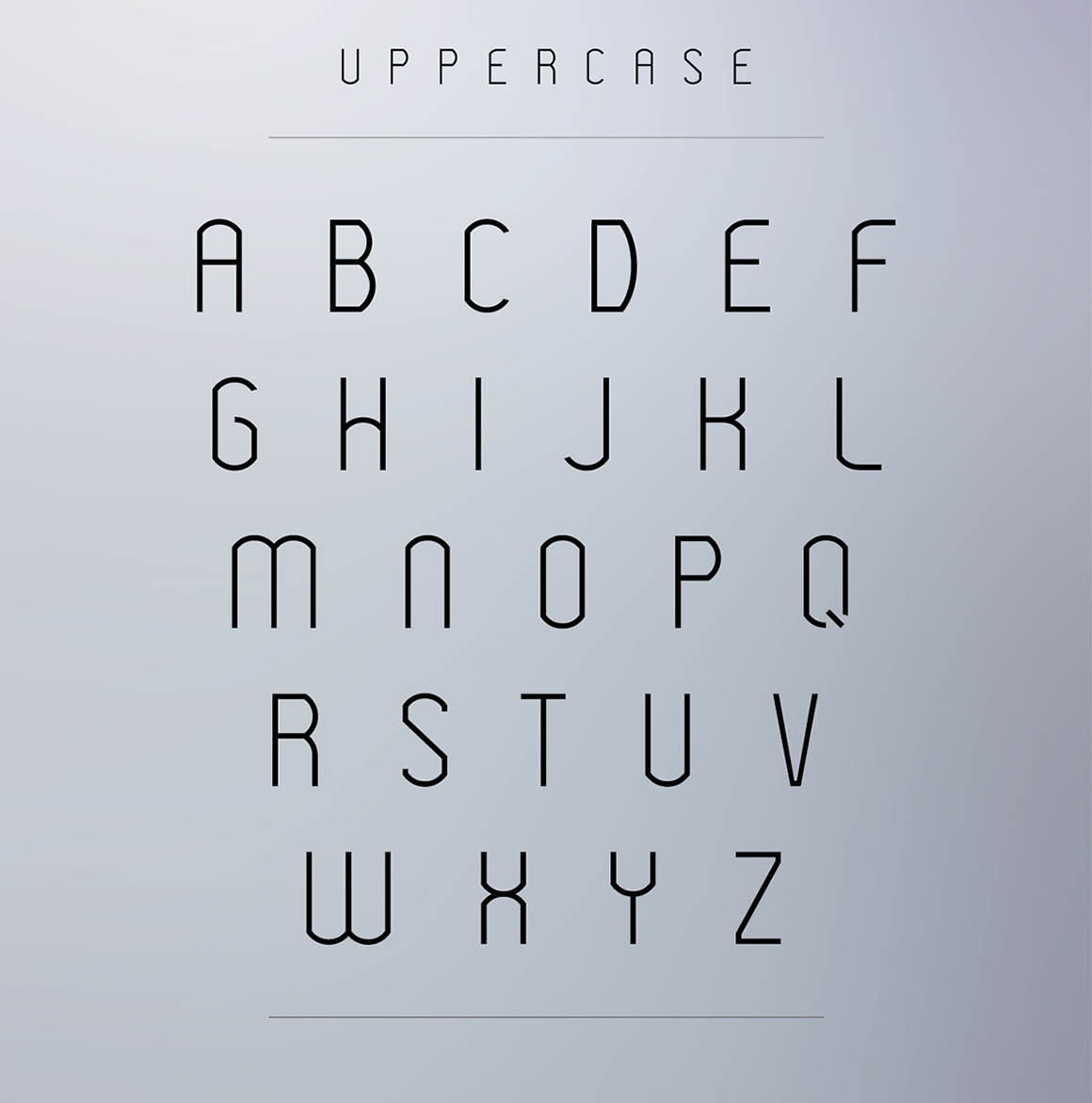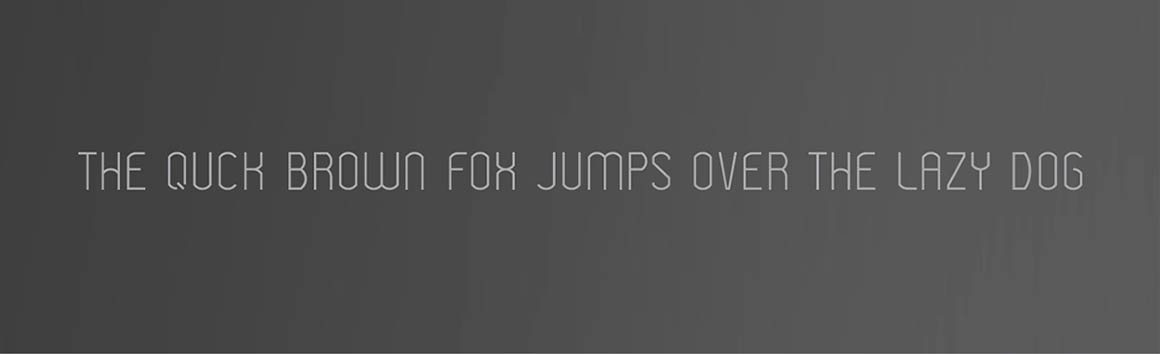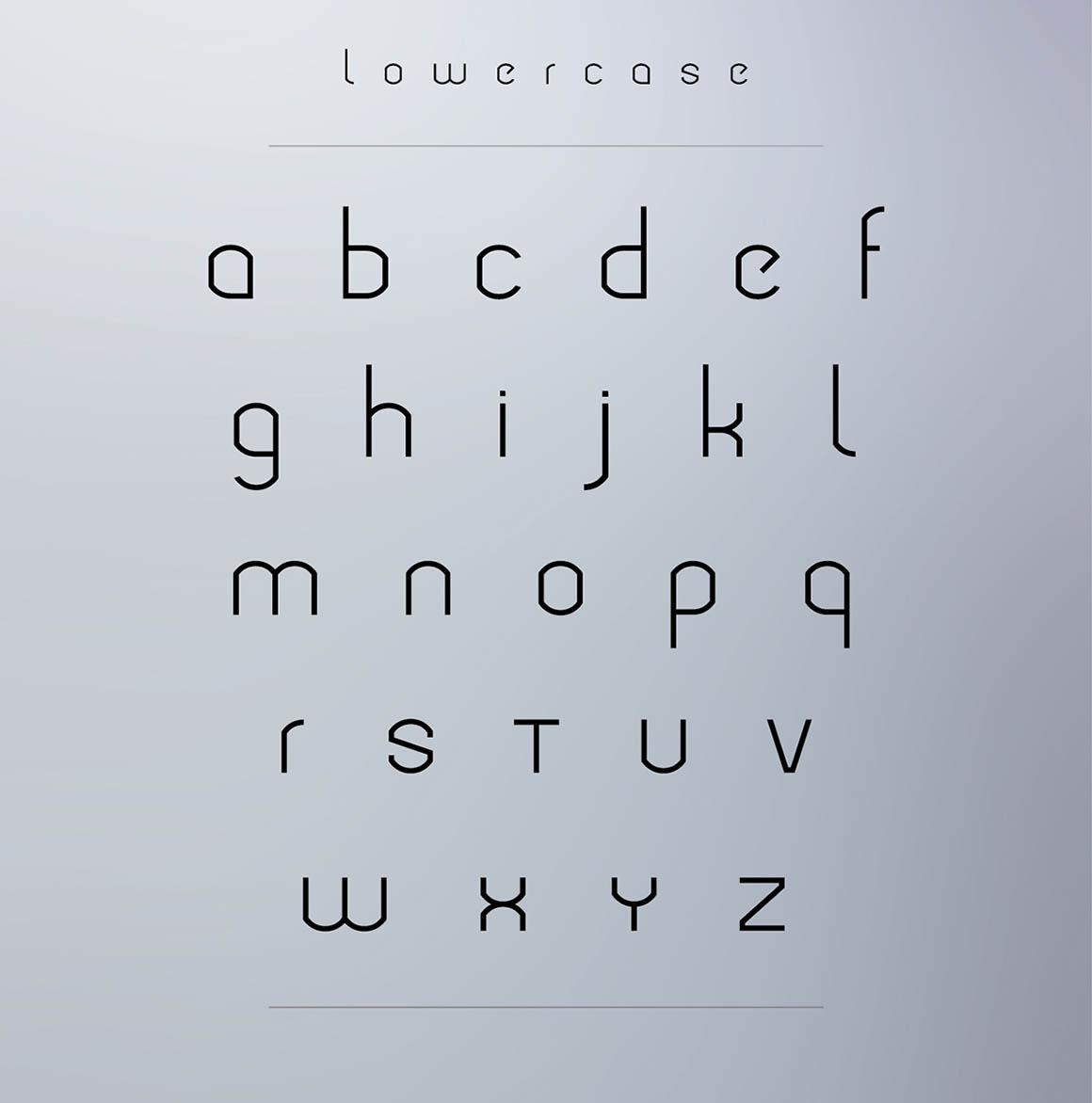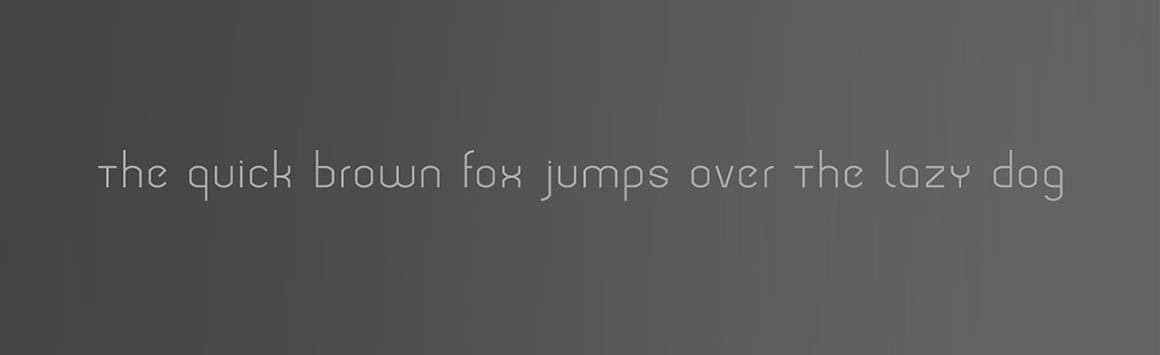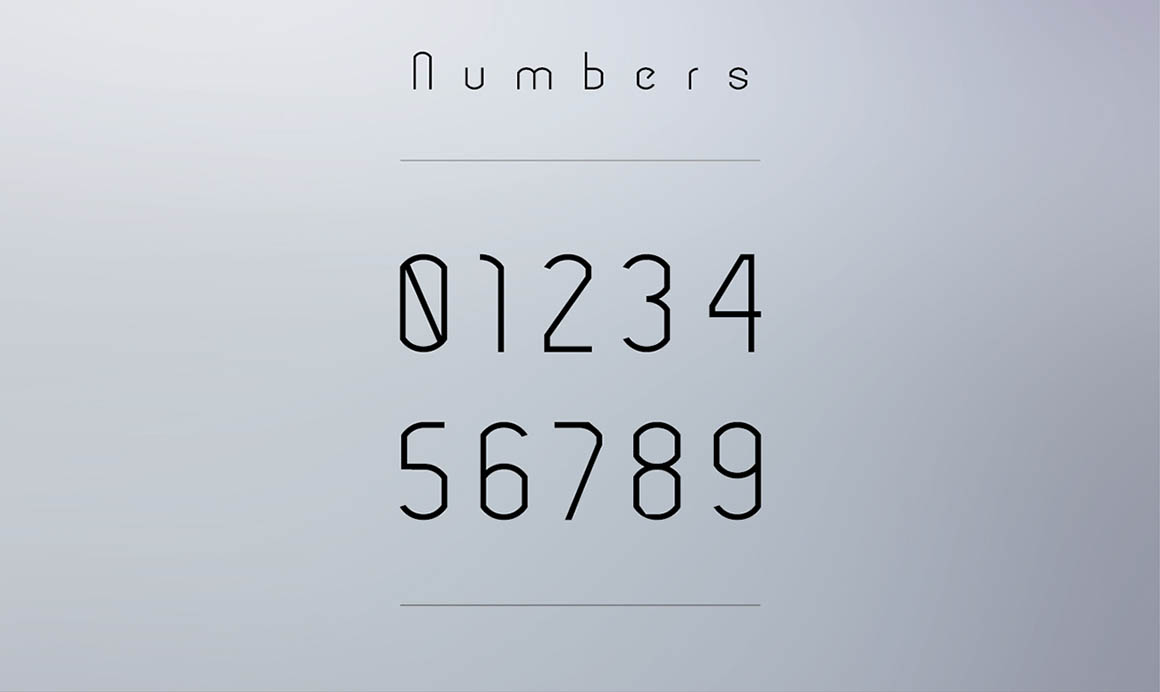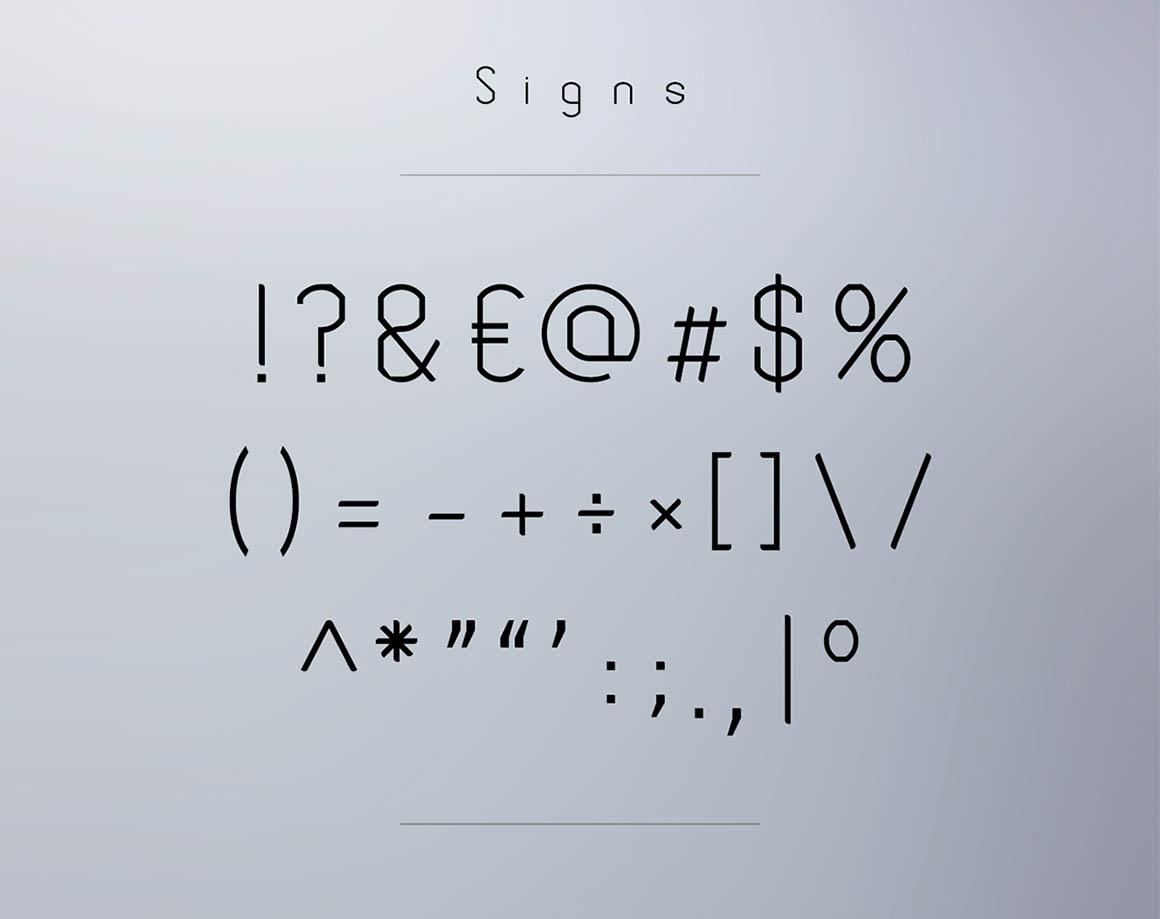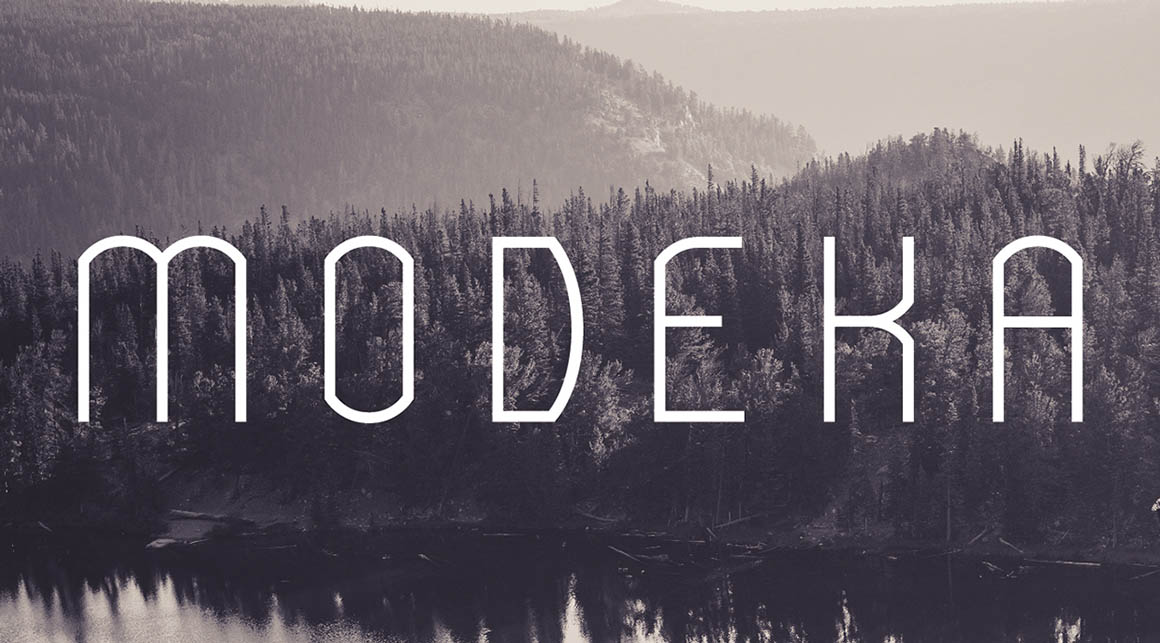
Modeka – Free Modern Font
This cool clean or modern style custom font is from Gatis Vilaks. Download and enjoy 😉 More cool free fonts from this author here!